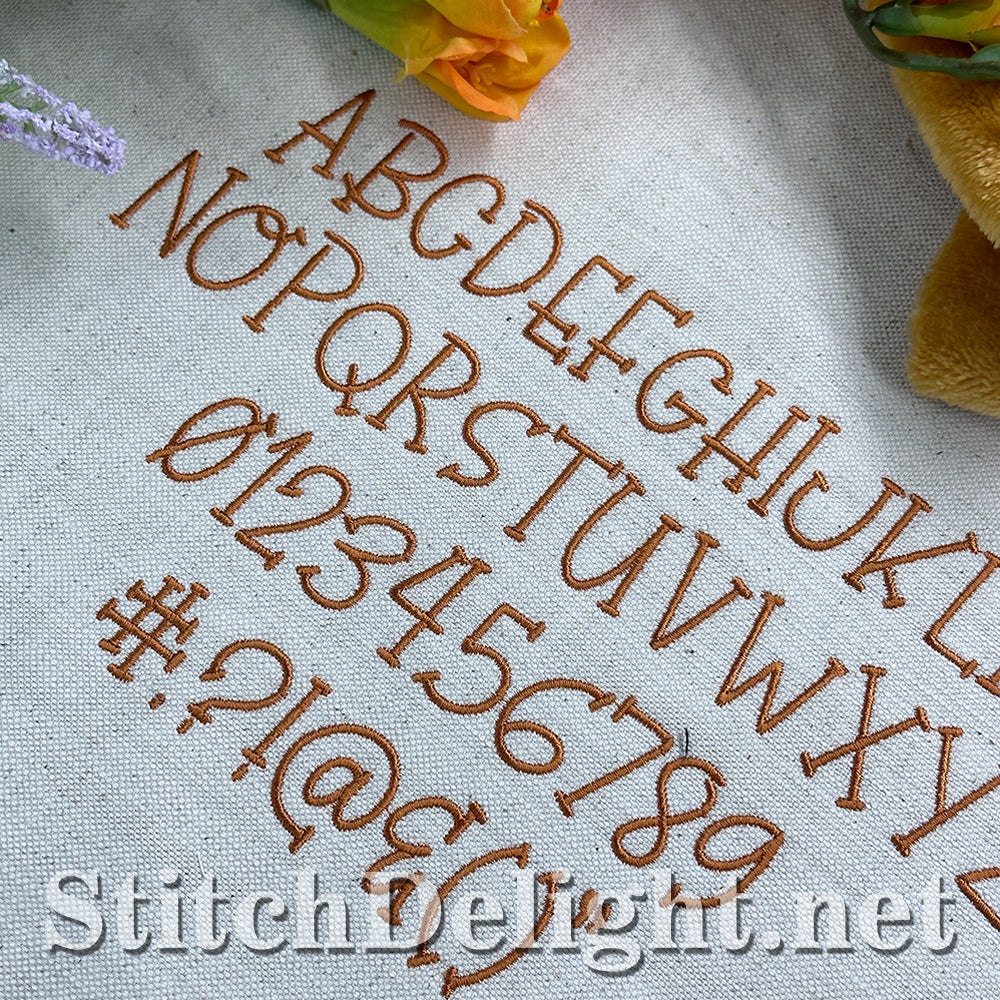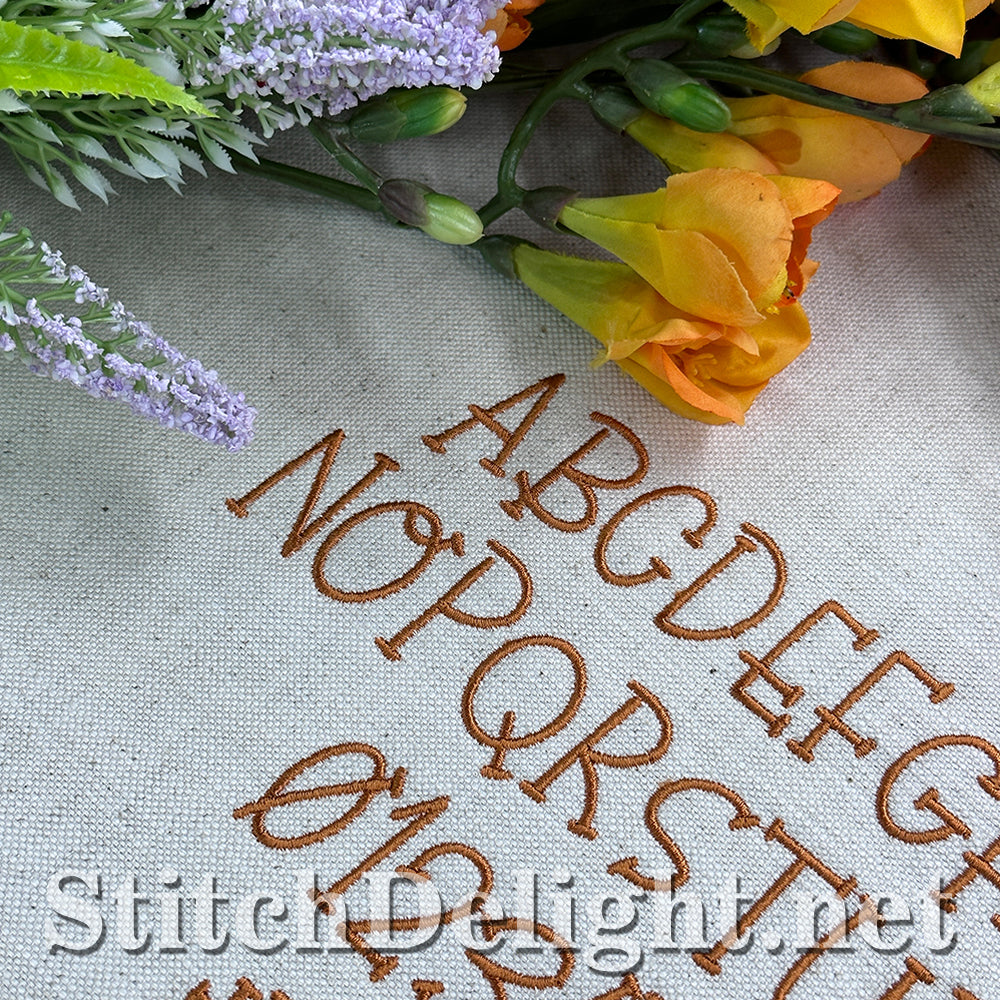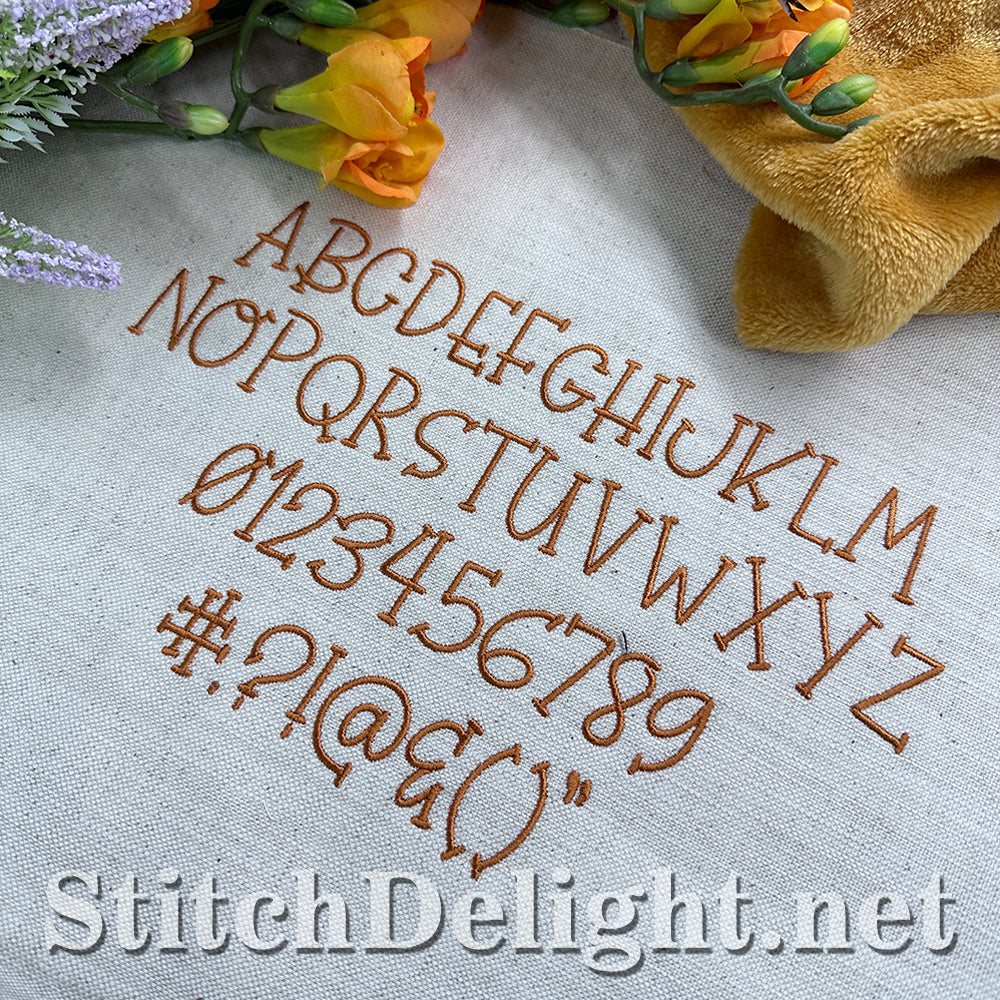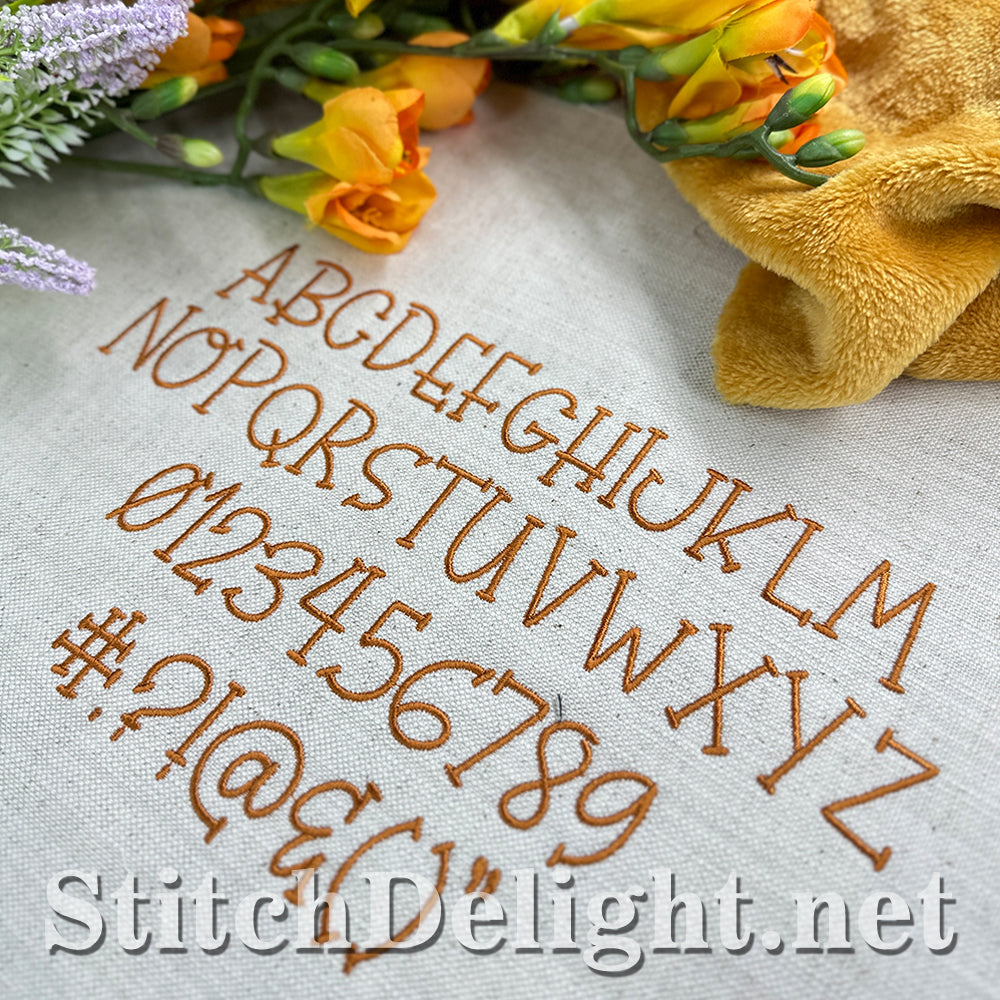
SDS4245 Adorable Font
The SDS4245 Adorable Font features beautiful, 1-inch tall letters that are easy to read. Perfectly coordinating with the Bee Kind Font (SDS4247) and the Bee Kind Quote (SDS4246), this font can bring an attractive, professional look to any project.